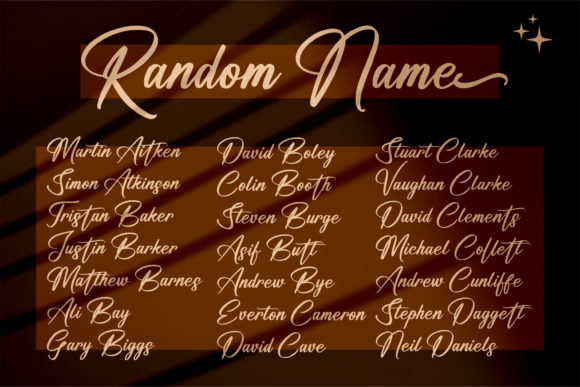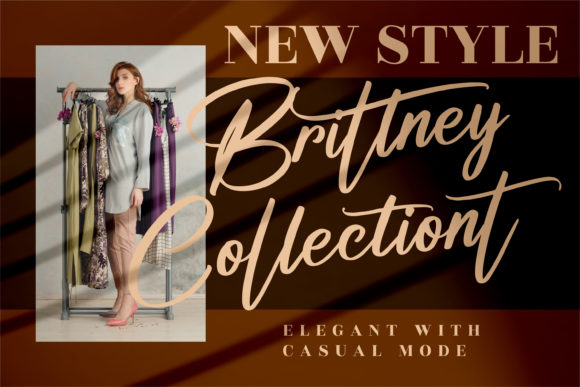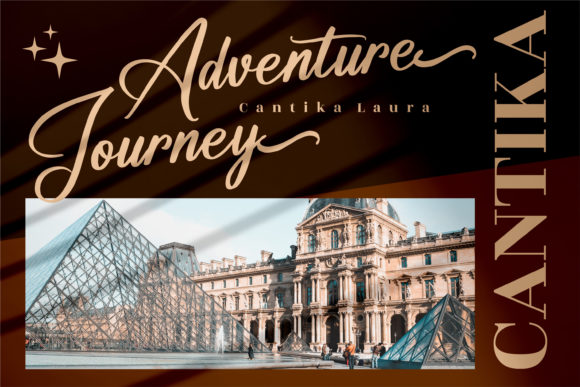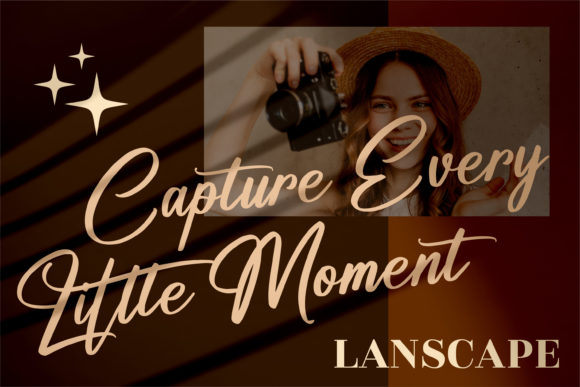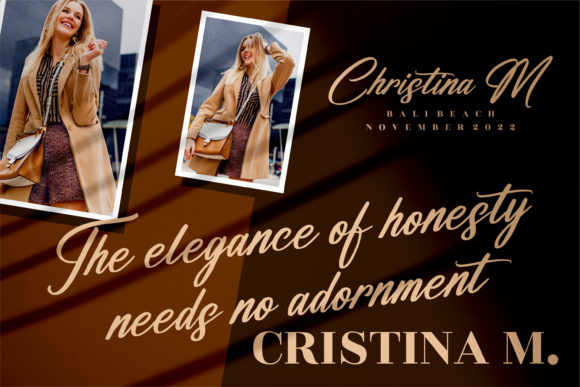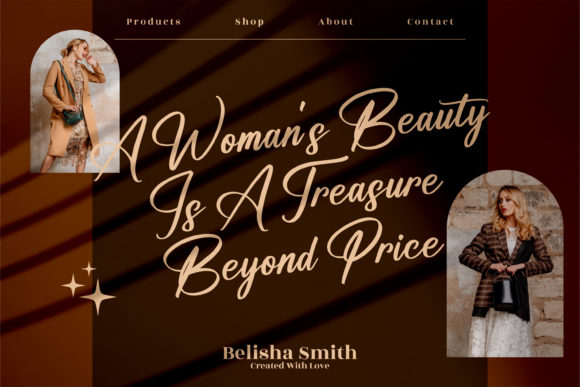
Unlock the Luxury of Anthony Hunter Font
There’s nothing quite like the thrill of creating something from scratch – the blank page, the blank canvas, the endless possibilities. For designers, this moment is where magic happens. You envision a stunning logo, a captivating poster, or a breathtaking website. The question is, what font will bring your vision to life?
Enter Anthony Hunter Font, a beautiful light handwritten font that adds a touch of luxury to any design project. With its unique feel and stunning impact, this font is the perfect choice for designers seeking to elevate their creations. PUA encoded, Anthony Hunter Font offers seamless access to its amazing glyphs and ligatures, making it a valuable asset for any design arsenal.
Anthony Hunter Font Key Features
- Size: The font has a large character set, including uppercase and lowercase letters, numerals, punctuation marks, and special characters.
- Unique Characteristics: The Anthony Hunter Font features a distinctive, handwritten style with varying line widths and subtle flair, making it suitable for creative and artistic applications.
- Font Weight: Available in regular, bold, and italic weights, providing flexibility for various design needs.
Review of Anthony Hunter Font
First off, I’d like to say that I’m a big fan of the Anthony Hunter Font’s ✨ elegant and sophisticated aesthetic. It’s perfect for high-end branding and luxury designs. The font’s curves and rounded edges give it a touch of classic elegance that’s hard to resist.
- ✨ Beautifully designed with elegant curves and rounded edges
- ✨ Suitable for high-end branding and luxury designs
- ✨ Comes in a range of weights to suit different design needs
However, I do have a few concerns with the font’s performance ⚠️. In my opinion, the Anthony Hunter Font is not suitable for body text or lengthy paragraphs due to its narrow width and intricate details. Additionally, the font’s complexity may lead to compatibility issues with certain operating systems or software.
- ⚠️ Not suitable for body text or lengthy paragraphs
- ⚠️ May experience compatibility issues with certain operating systems or software
- ⚠️ Narrow width and intricate details may cause readability issues
Overall, I think the Anthony Hunter Font is a solid choice for designers who want to create high-end, luxurious designs. While it may have its limitations, the font’s unique aesthetic and range of weights make it a valuable addition to any designer’s toolkit.
Tips: Use the Anthony Hunter font for titles and headings to add a touch of elegance to your design.
Tips: Use the Anthony Hunter font for logos and branding materials to create a professional and sophisticated look.
Tips: Use the Anthony Hunter font for presentations and reports to add a touch of sophistication and elegance.
The Anthony Hunter font is perfect for:
- Titles and headings
- Editorial design and publishing
Alternatives to Anthony Hunter Font
Playfair Display is an elegant, high-end serif font that works well for luxury brands, fine art, and high-end fashion. It features intricate details and a classic feel. It’s ideal for use in titles, headings, and any text that requires sophistication. Compared to Anthony Hunter Font, Playfair Display is more luxurious and formal.
Great Vibes is a modern script font with a relaxed, casual feel. It’s perfect for use in branding, advertising, and any text that requires a friendly and approachable tone. Compared to Anthony Hunter Font, Great Vibes is more casual and laid-back.
Lato is a clean and modern sans-serif font that works well for digital products, web design, and any text that requires clarity and readability. It’s ideal for use in body text, headings, and any text that requires a professional tone. Compared to Anthony Hunter Font, Lato is more modern and clean.